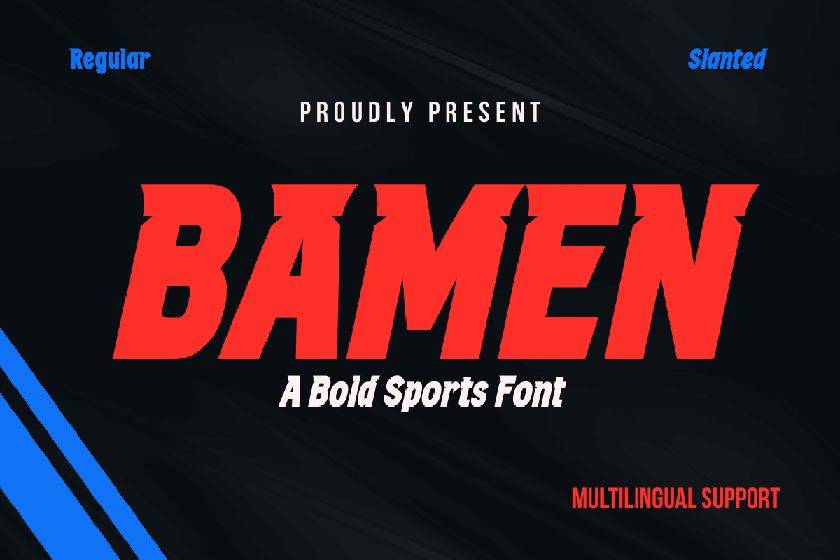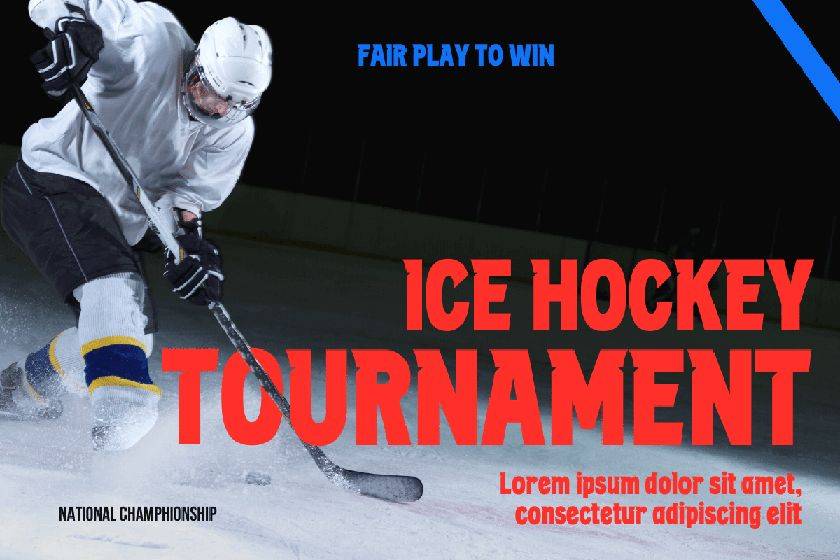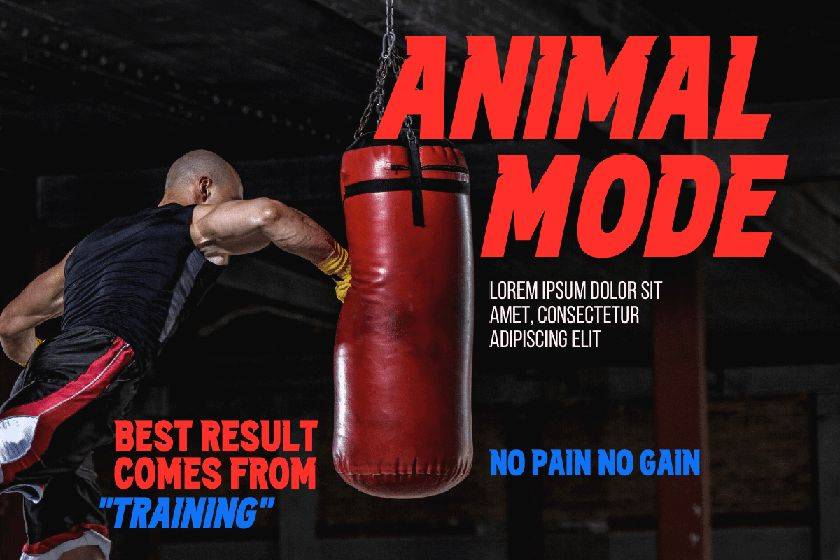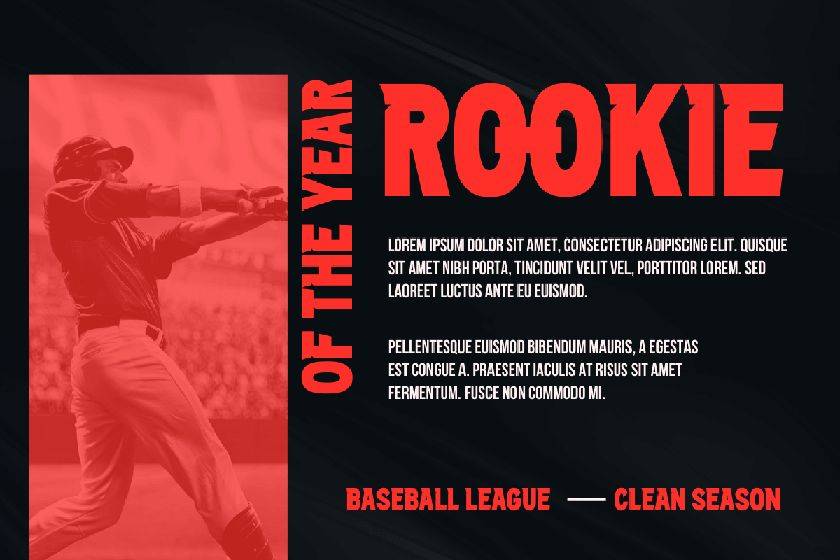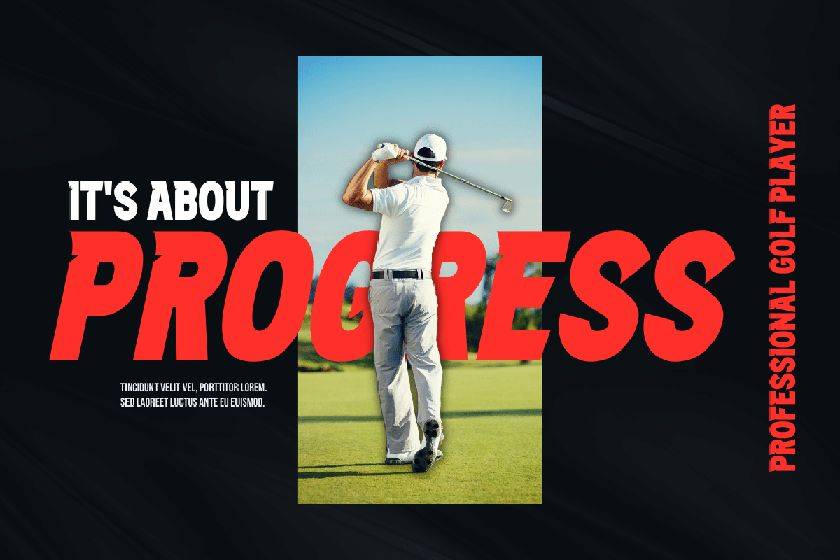
Bamen Slant is a bold, condensed sans serif font with a dynamic slanted style that conveys energy and movement. Its thick strokes, tight spacing, and italicized angle make it ideal for impactful headlines, logos, and branding that require a strong, modern, and confident appearance. This font works especially well in sports, automotive, and urban-themed designs where a sense of speed and power is desired.
Bamen Font
About Bamen Font